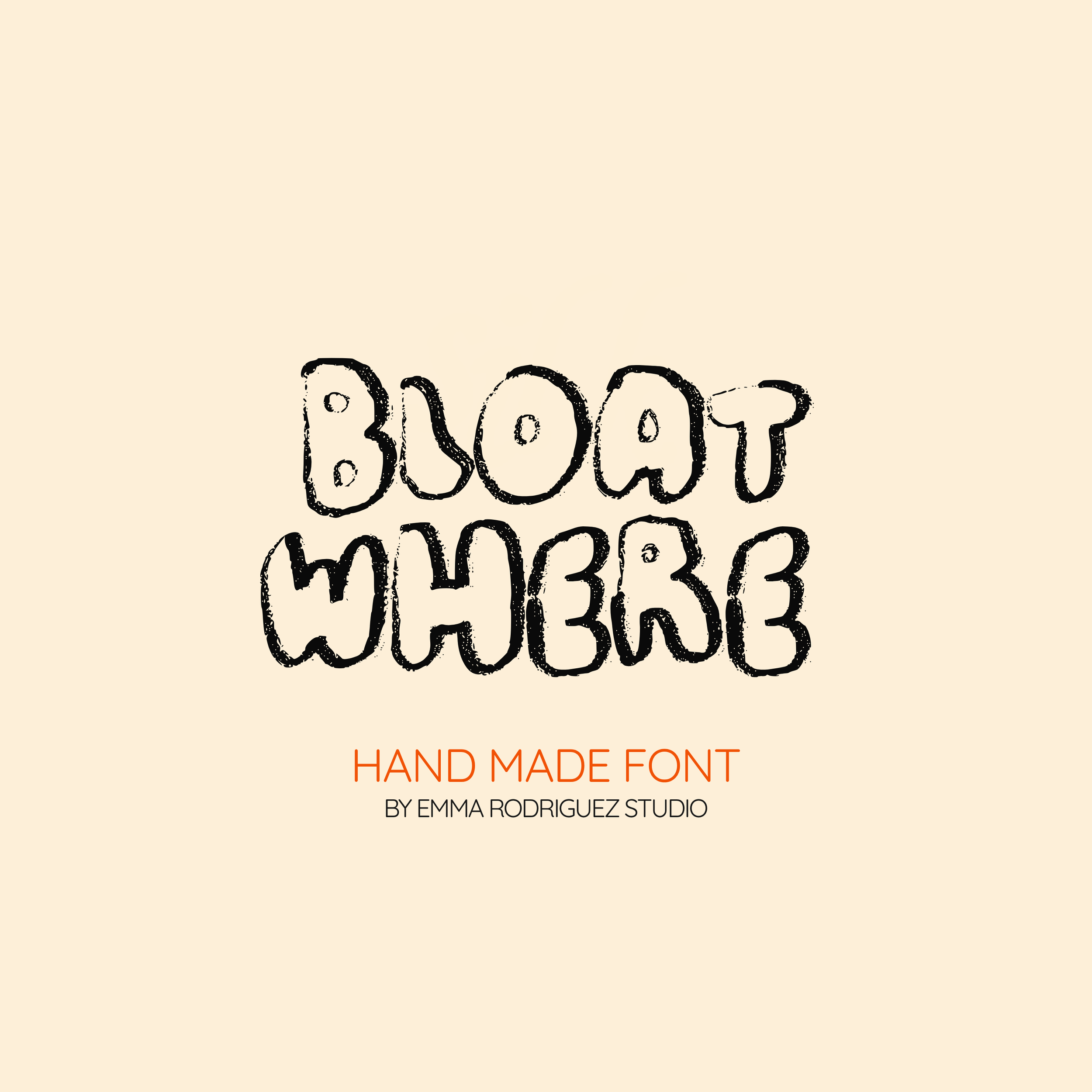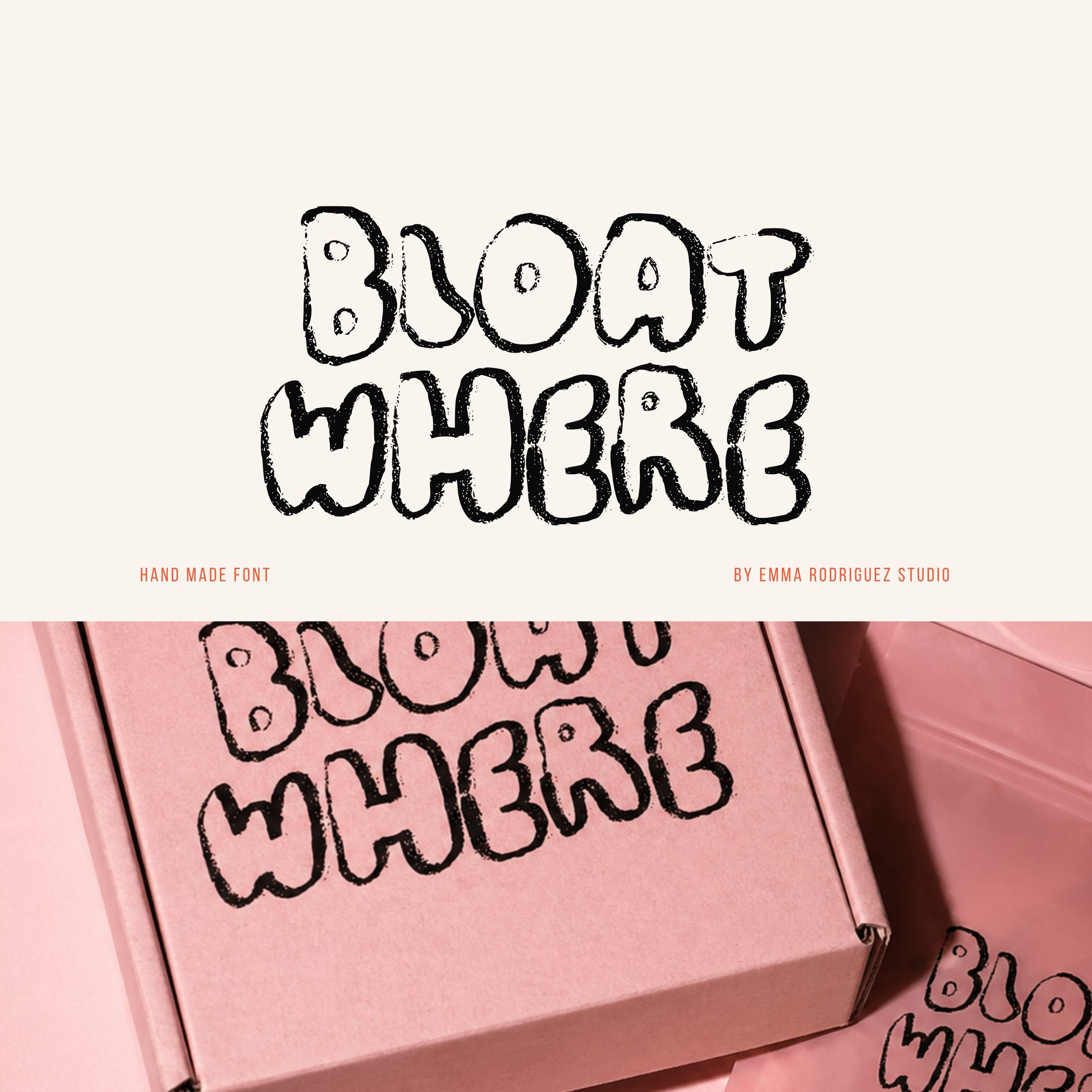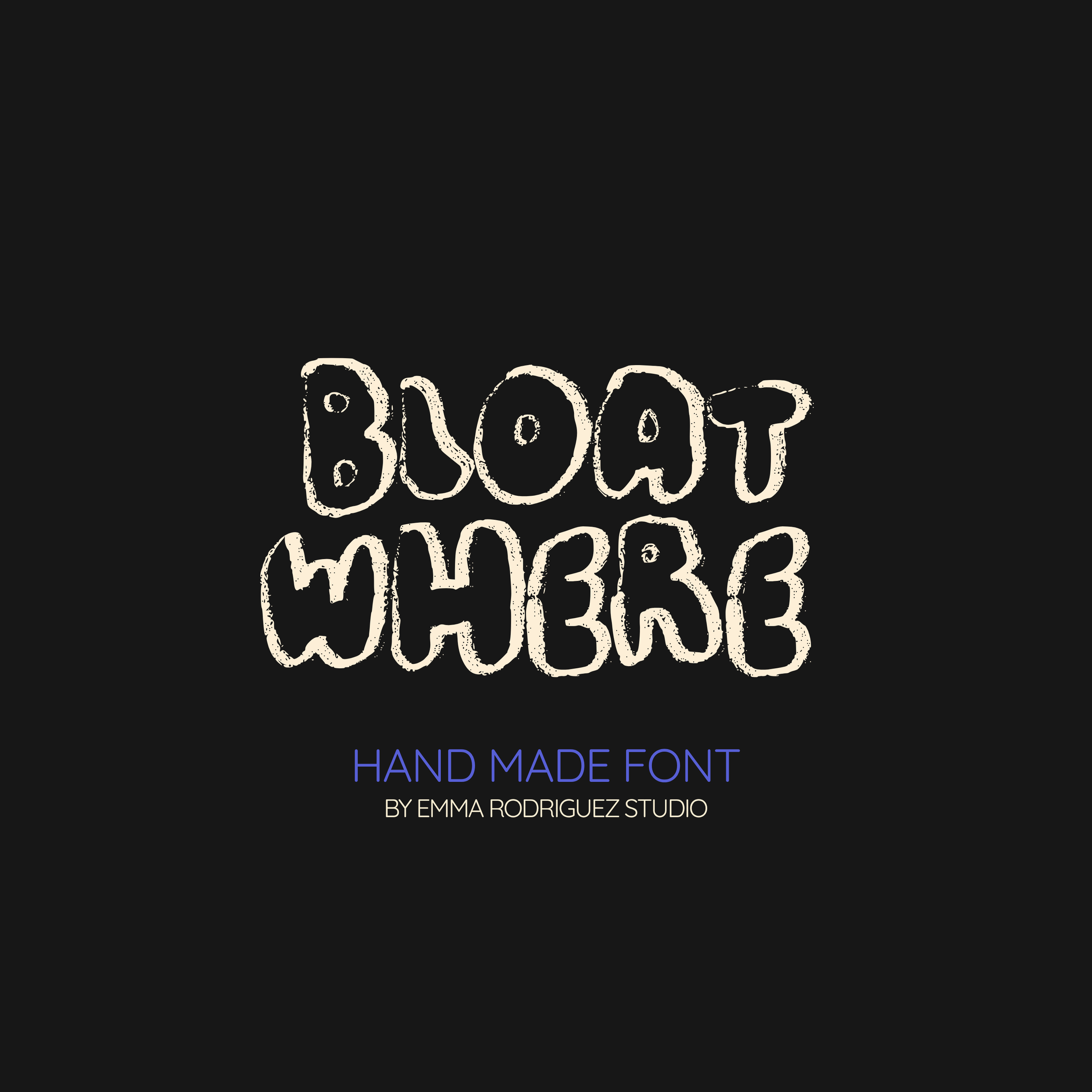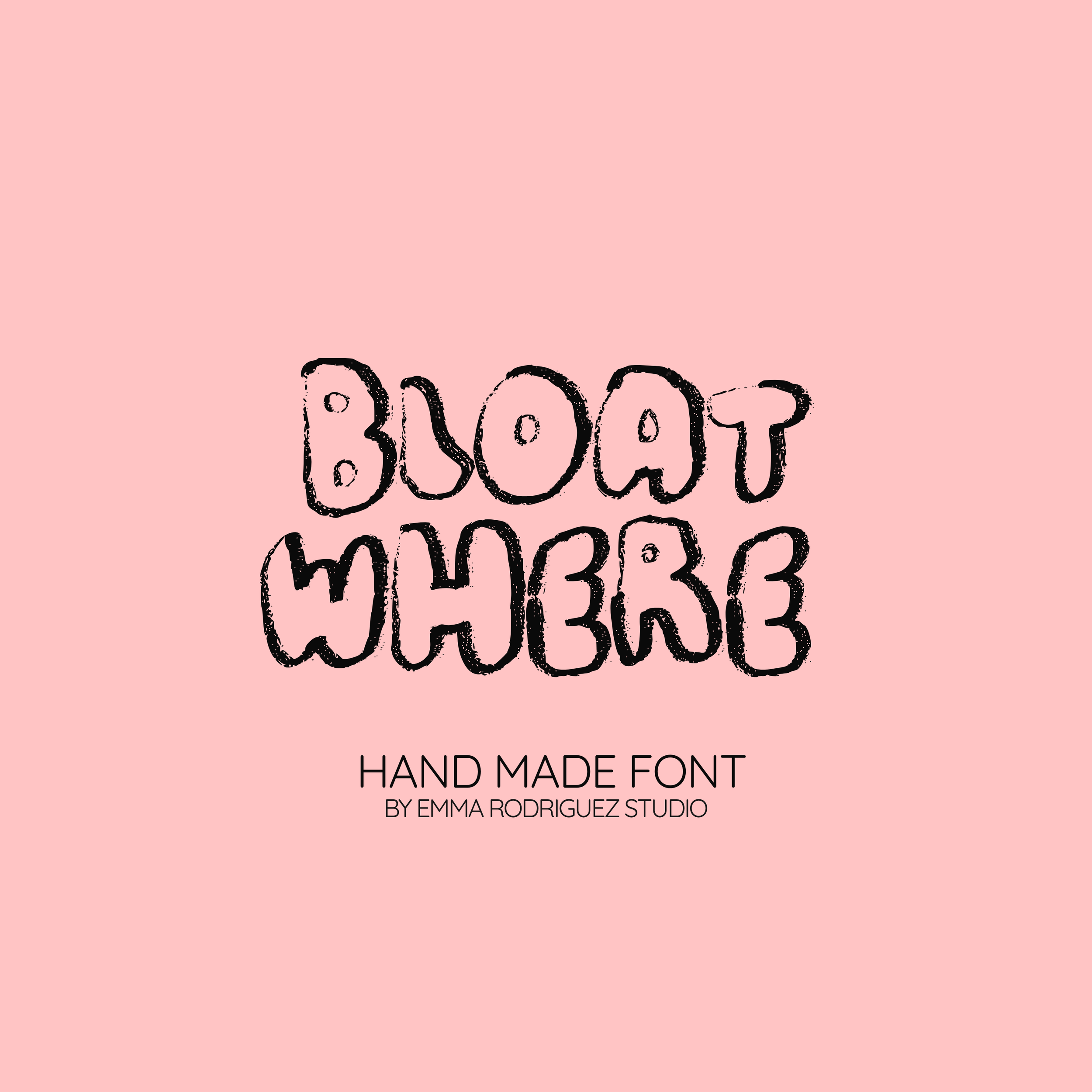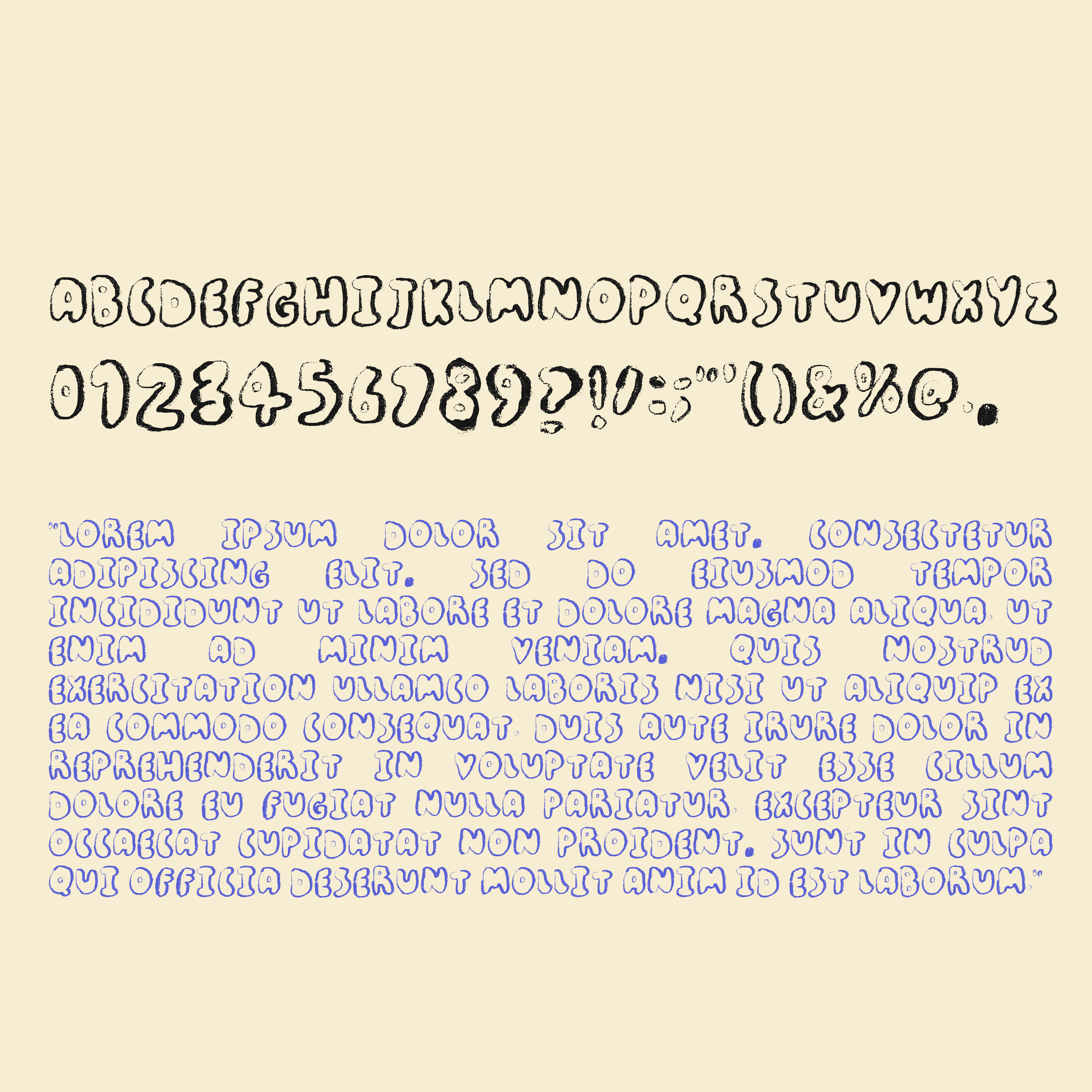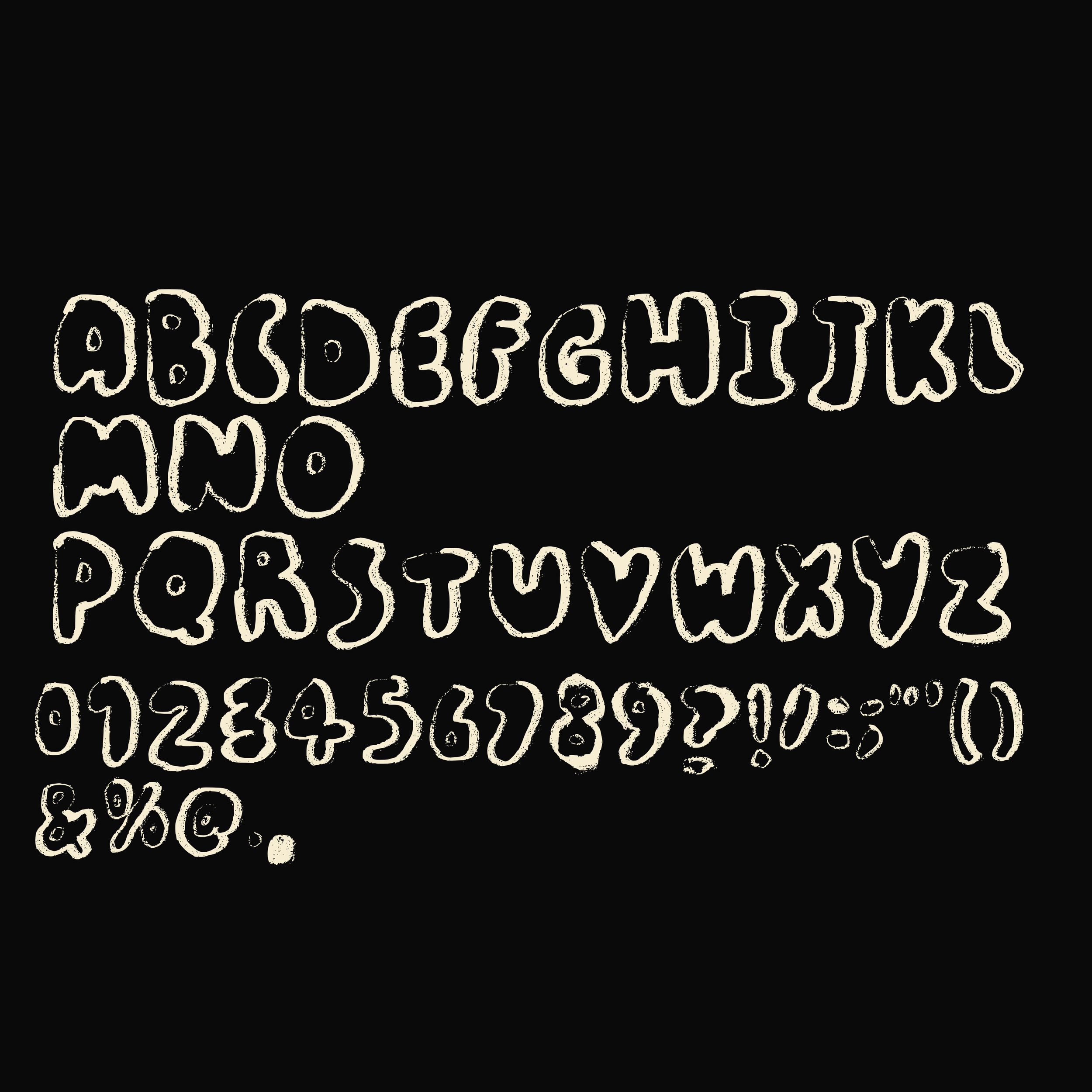
Bloat Where Font - Bubbly Inky Type
Meet Bloat Where, a chunky, bubbly hand-drawn font with a messy outline and soft, inflated letterforms that feel playful, weird, and full of personality. Thick rounded shapes paired with rough, sketchy edges give it that imperfect, doodled look that feels bold without being too serious.
It leans into that slightly chaotic, scribbled style while still being super readable, making it ideal for fun, standout designs that need character.
Bloat Where is made for projects that want to feel light, playful, and a bit offbeat without looking overly polished.
• Uppercase letters
• Numbers and basic punctuation
USE IT FOR:
– Playful branding
– Posters and bold headlines
– Stickers and merch
– Packaging design
– Zines and fun print projects
– Social content that needs personality
Please note:
This is an outline-style font only. The letterforms are intentionally drawn with rough, broken edges and visible gaps as part of the design. Because of this, filling the letters manually may not produce clean or consistent results. This font is designed to be used as-is for its textured, outlined look.